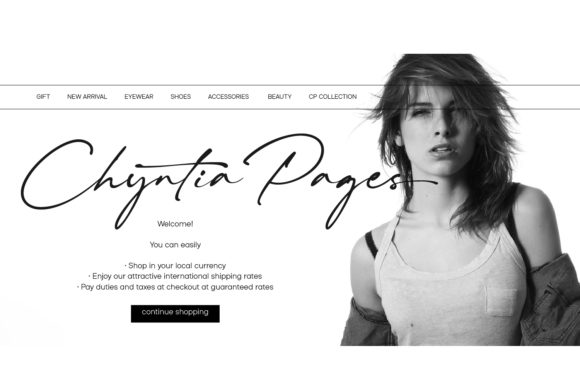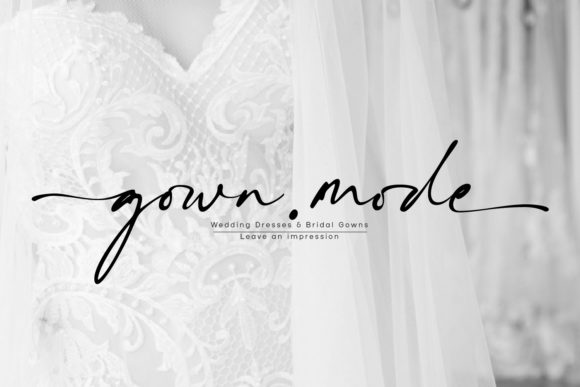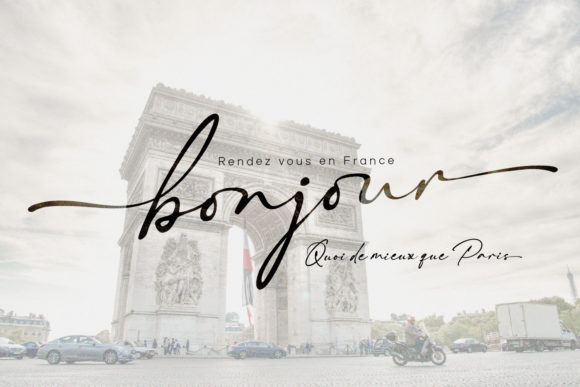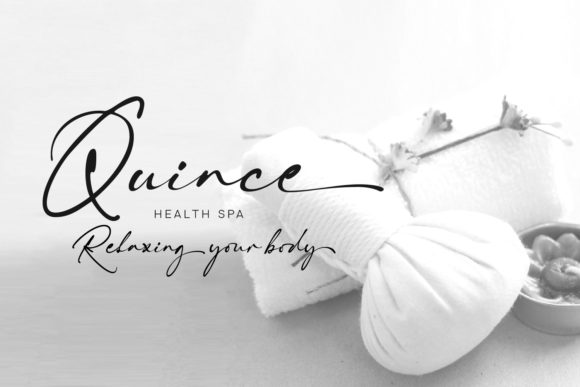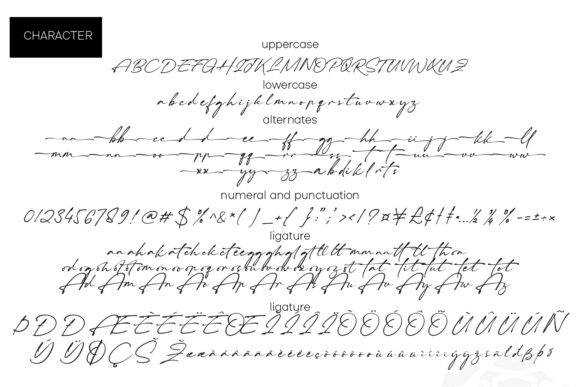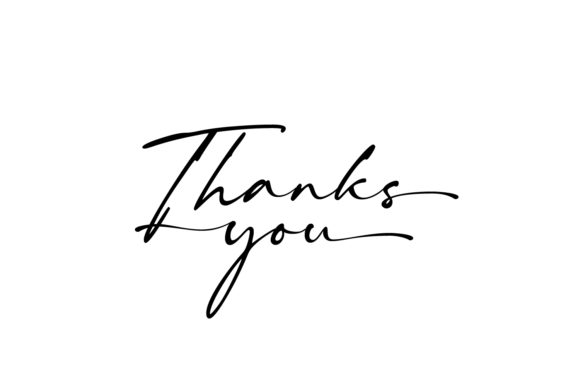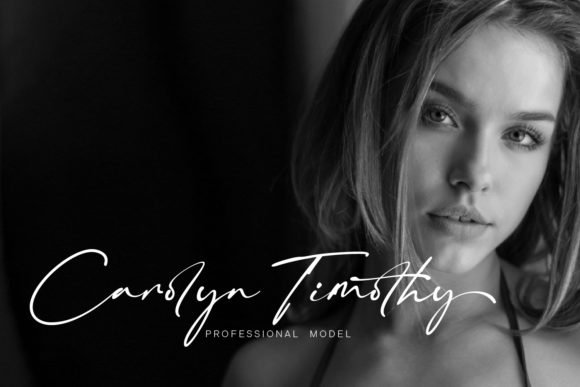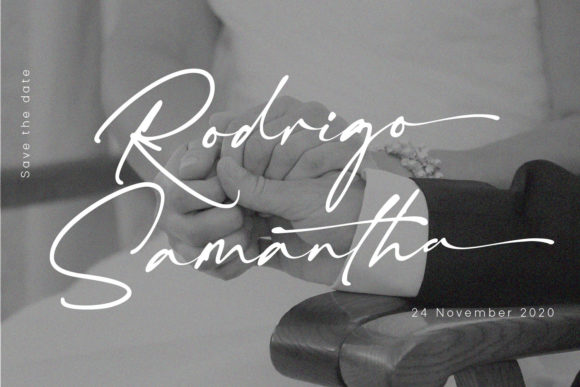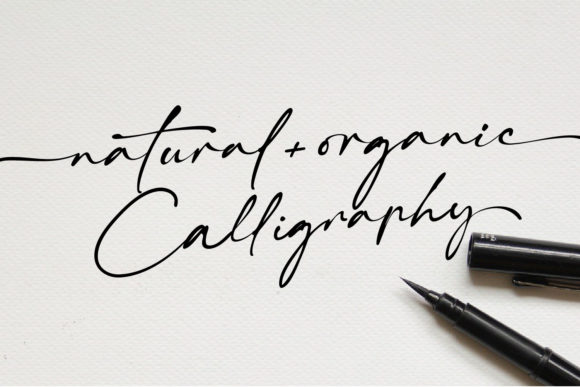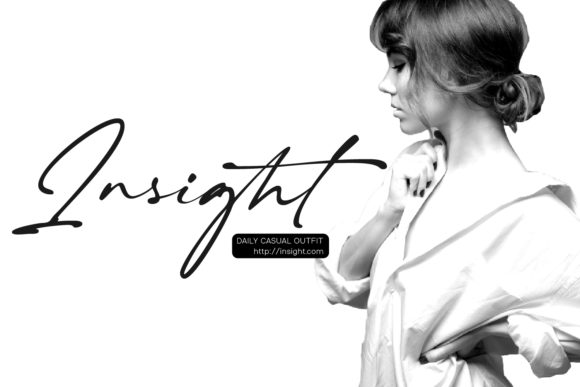
The Pallace Font
The Pallace is a captivating and sophisticated handwritten font that exudes charm and elegance. With its versatile style, this font is perfect for creating stunning designs, from wedding invitations to beautiful stationery art and eye-catching social media posts. The possibilities are endless!
The Pallace font offers a harmonious blend of classic and contemporary elements. Its graceful letterforms and intricate details give it a refined and upscale appearance, making it ideal for high-end designs that require a touch of luxury. Whether you’re designing for a formal event or creating branding materials for a sophisticated brand, The Pallace font will elevate your projects to new heights.
With its PUA encoding, The Pallace font provides easy access to all the glyphs and swashes it offers. This means you can effortlessly incorporate the special characters, ligatures, and decorative elements into your designs, enhancing their visual appeal and adding a personalized touch. Explore the extensive glyph library to customize and embellish your typography, creating truly unique and captivating compositions.
The versatility of The Pallace font allows it to adapt to various design contexts. Its legibility and readability make it suitable for both headline text and body text, ensuring clear communication of your message. Whether you’re designing elegant wedding invitations, refined logos, or captivating social media posts, The Pallace font will bring a sense of sophistication and allure to your work.
To make the most of The Pallace font, consider pairing it with complementary typefaces. Its elegant and timeless style pairs well with both serif and sans-serif fonts, creating interesting and balanced typographic compositions. Experiment with different combinations to achieve the desired aesthetic and convey the intended mood of your design.
When working with The Pallace font, pay attention to the overall composition and layout. The generous spacing and graceful curves of the letters require careful placement to ensure optimal readability and visual harmony. Take advantage of the font’s versatility by adjusting the size, color, and other typographic elements to create focal points and hierarchy within your designs.
In summary, The Pallace is a charming and elegant handwritten font that offers incredible versatility for a wide range of design projects. Its refined style, combined with the easy access to glyphs and swashes, allows you to create stunning and personalized designs. Embrace the beauty of The Pallace font and let it add an air of sophistication and allure to your work.